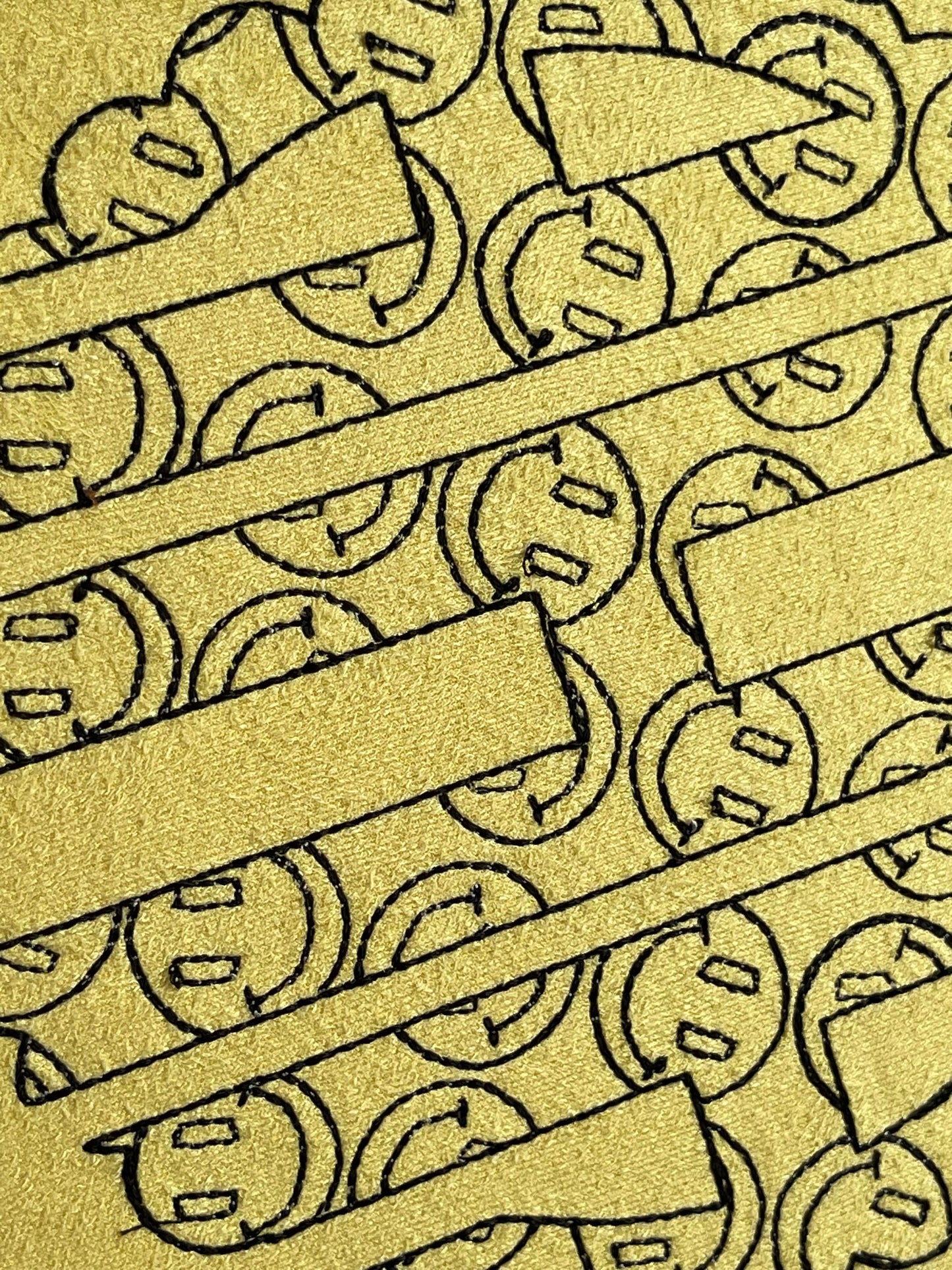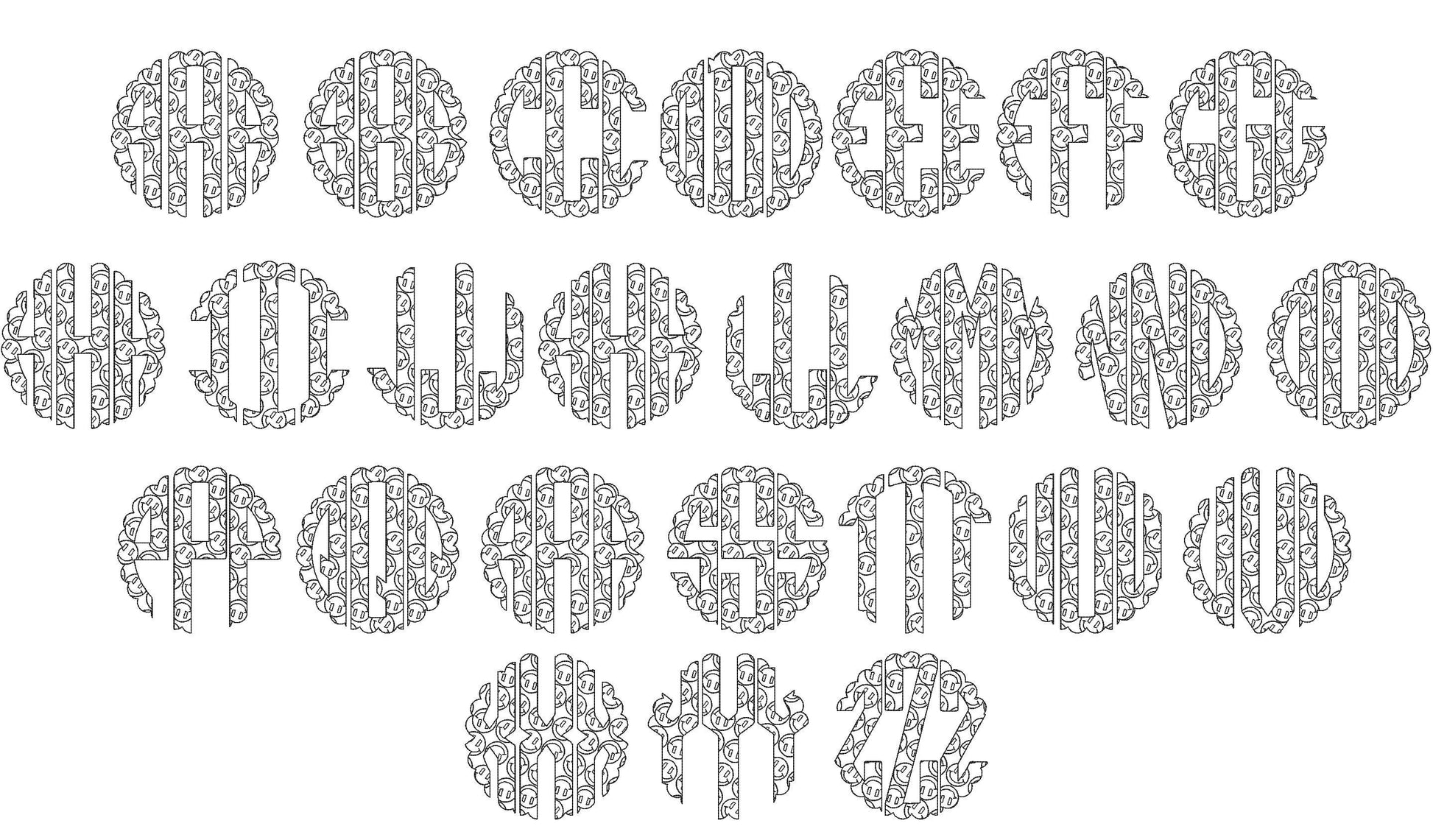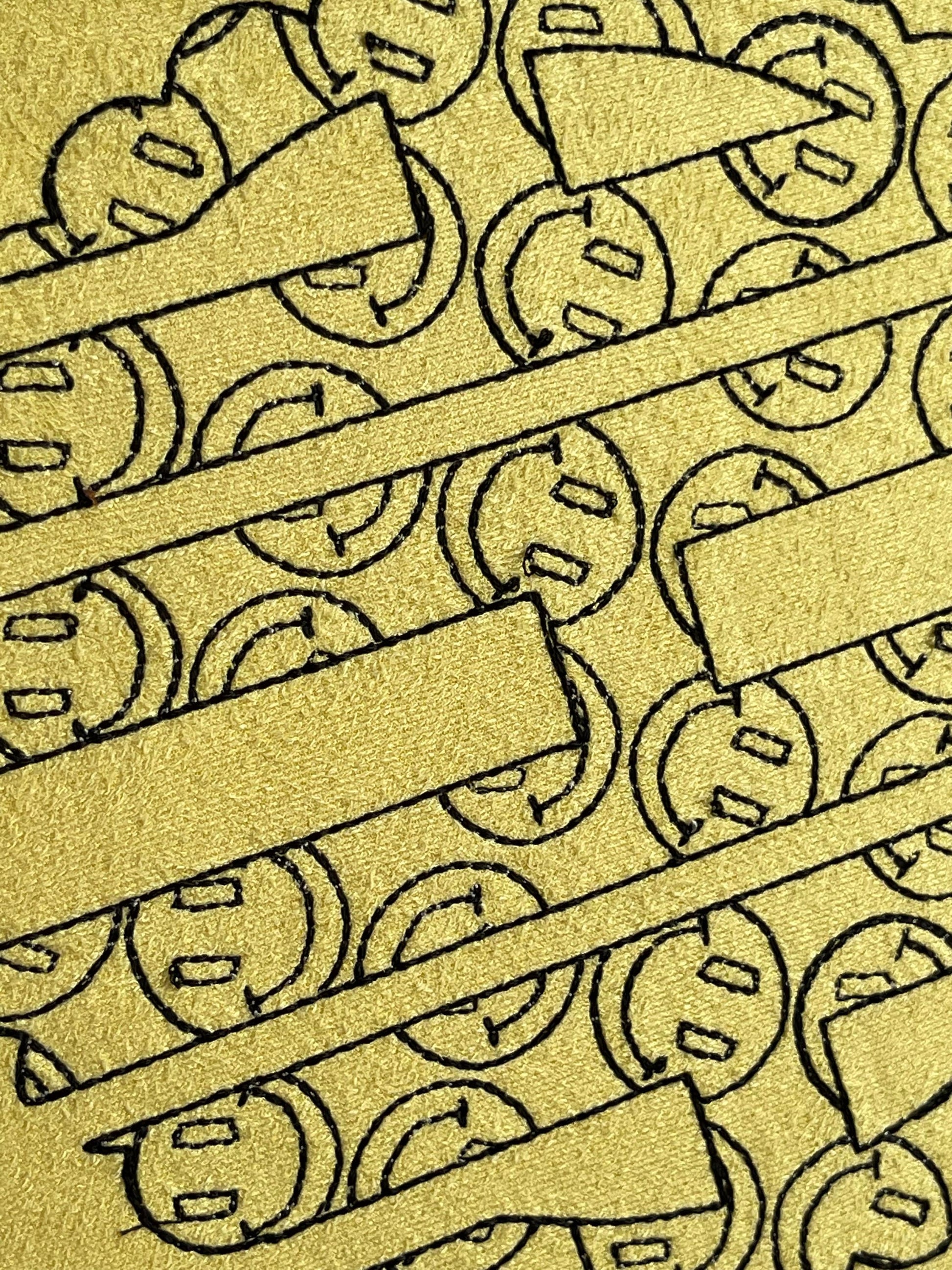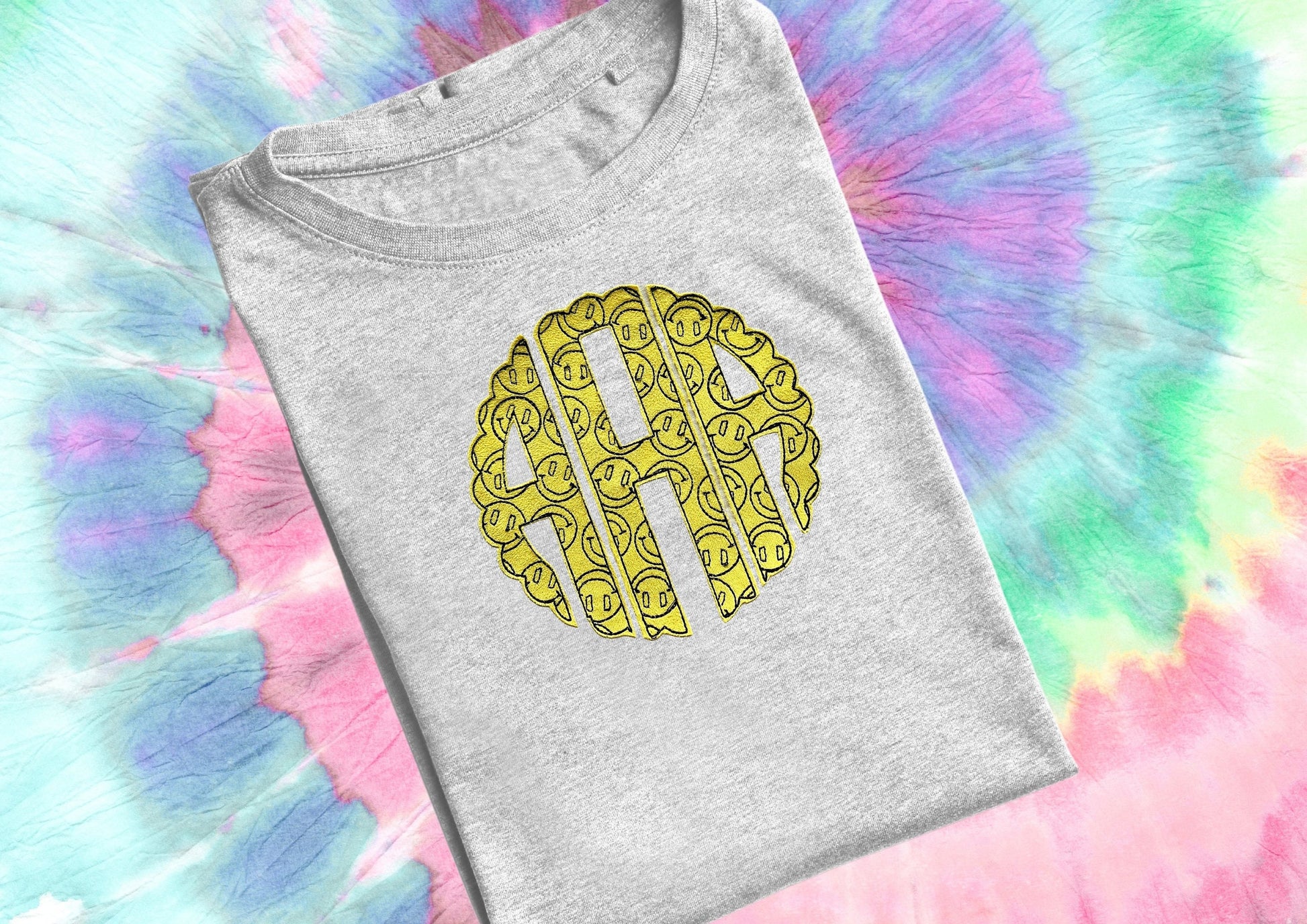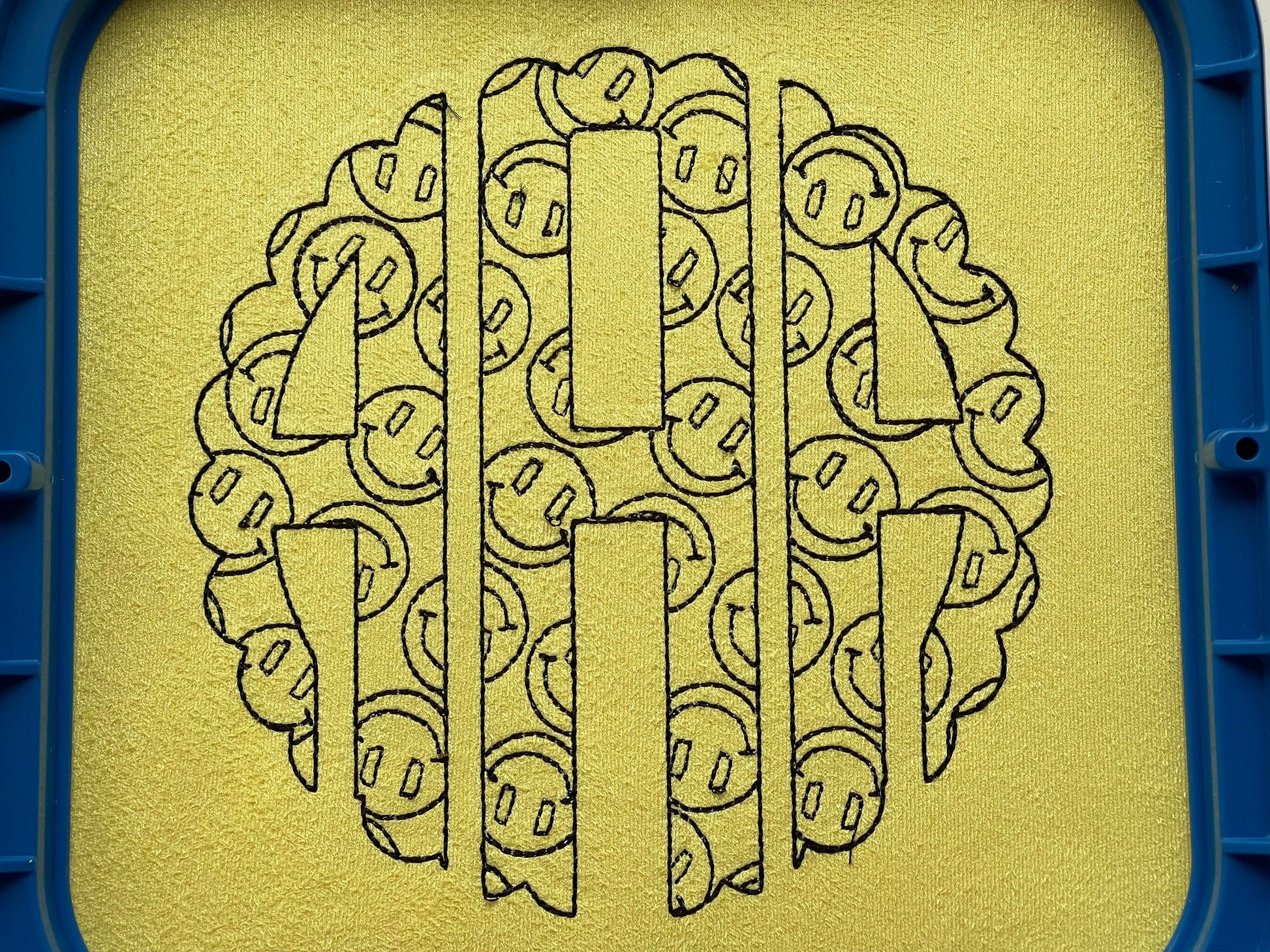
Happy Face Patterned Circle Monogram
Letters A to Z come as left, center and right pieces, so three initials form a circle monogram. Seven sizes: 4, 4.5, 5, 5.5, 7, 8 and 9 inches. Light stitching, and the smiley pattern is part of every letter.
- Happy face circle monogram font, light stitch
- Left, center and right letters A to Z